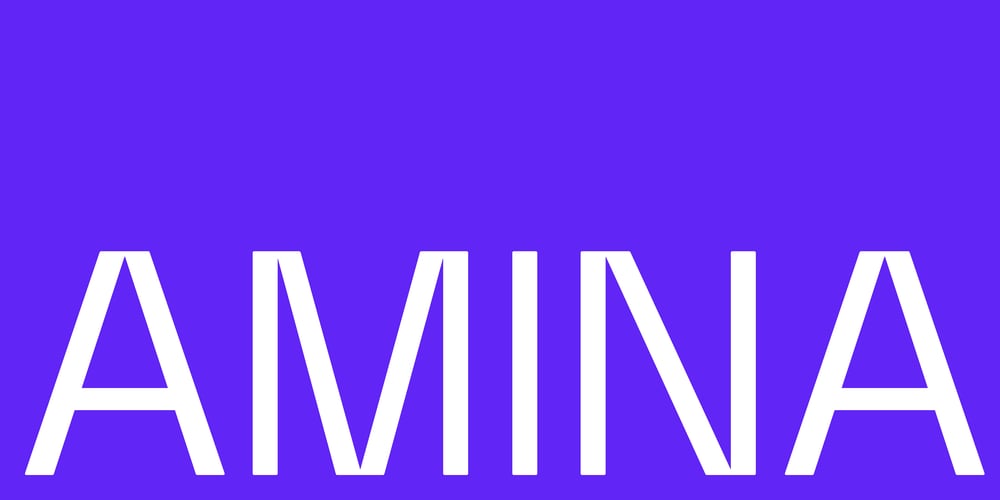
Amina
Amina font
Amina Font Family was designed by Wayne Fearnley and published by Wayne Fearnley. Amina contains 10 styles and family package options. Amina was created using the DNA of Metrik. A neutral grotesque sans serif, chopped and remixed to create Amino. The ink traps have been raised to create a dynamic typographic language that makes Amina contemporary and dynamic. Amina works great for bold, typographic treatments and still maintains readability in body copy. Includes language support, stylistic alternates.